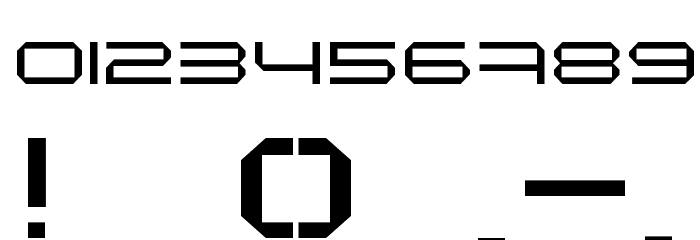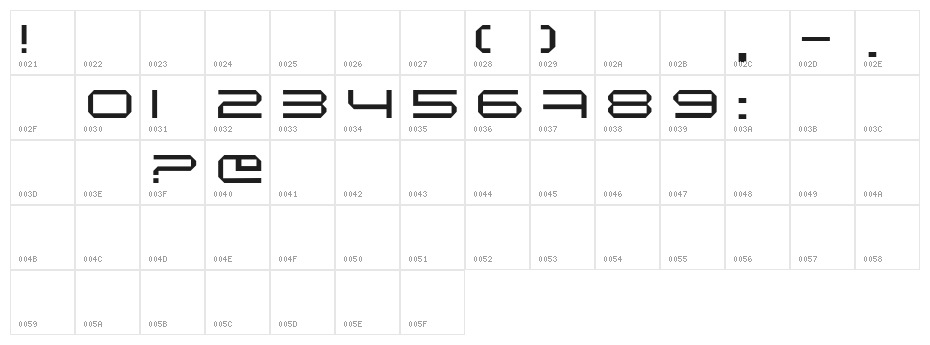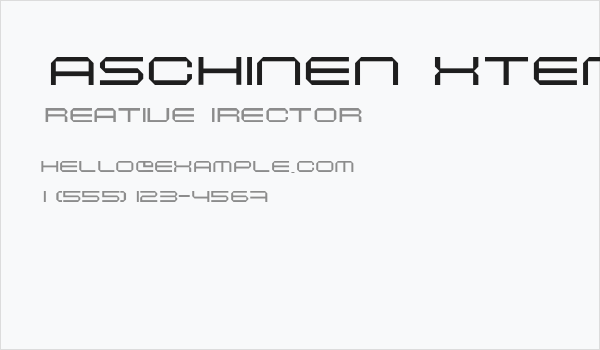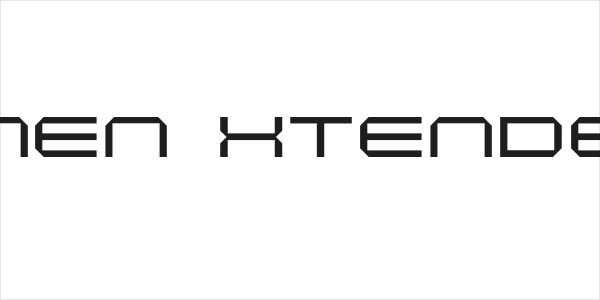
Maschinen ExtendedLight Font
Maschinen ExtendedLight Description
This font features a geometric and futuristic design with a distinctly mechanical feel. The characters are constructed with straight lines and sharp angles, giving it a technical and precise appearance. The uppercase letters are uniform in height, and the lowercase letters maintain a consistent style, enhancing readability while preserving the unique aesthetic. The numbers and special characters follow the same design principles, ensuring a cohesive look across all glyphs. This font is ideal for projects that require a modern and industrial touch, such as technology branding, automotive designs, or sci-fi themed materials.
Use CaseLogos, Headlines
Proposed ProjectsIdeal for technology branding, automotive designs, sci-fi themes, and industrial projects.